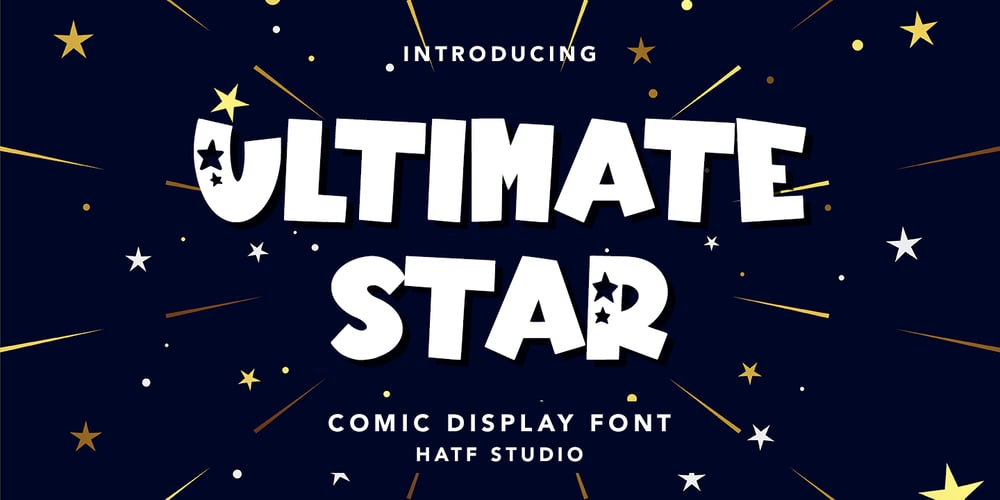
Ultimate Star Font Family was designed by Asep Rendi and published by Hatftype. Ultimate Star contains 1 styles and family package options. Is a comic display font with distinctive handwritten characters perfect for branding projects, logos, wedding designs, media posts, advertisements, product packaging, product designs, labels, photography, watermarks, invitations, stationery, and any project who need handwritten dishes.Features : Uppercase & Lowercase Multilingual support Number Symbol Punctuation Support in Mac and Windows OS Support in design application (photoshop, illustrator, and more) There it is.I really hope you enjoy it.